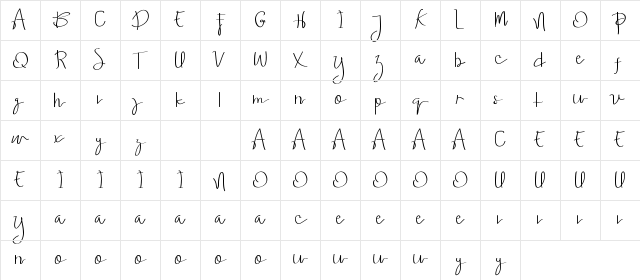
Complete Ariesta Moon Demo Regular glyph index. Displaying only characters natively supported by Ariesta Moon Demo Regular font.
Ariesta Moon Demo is a composed and adaptable typeface that performs quietly and consistently across a wide range of design contexts.